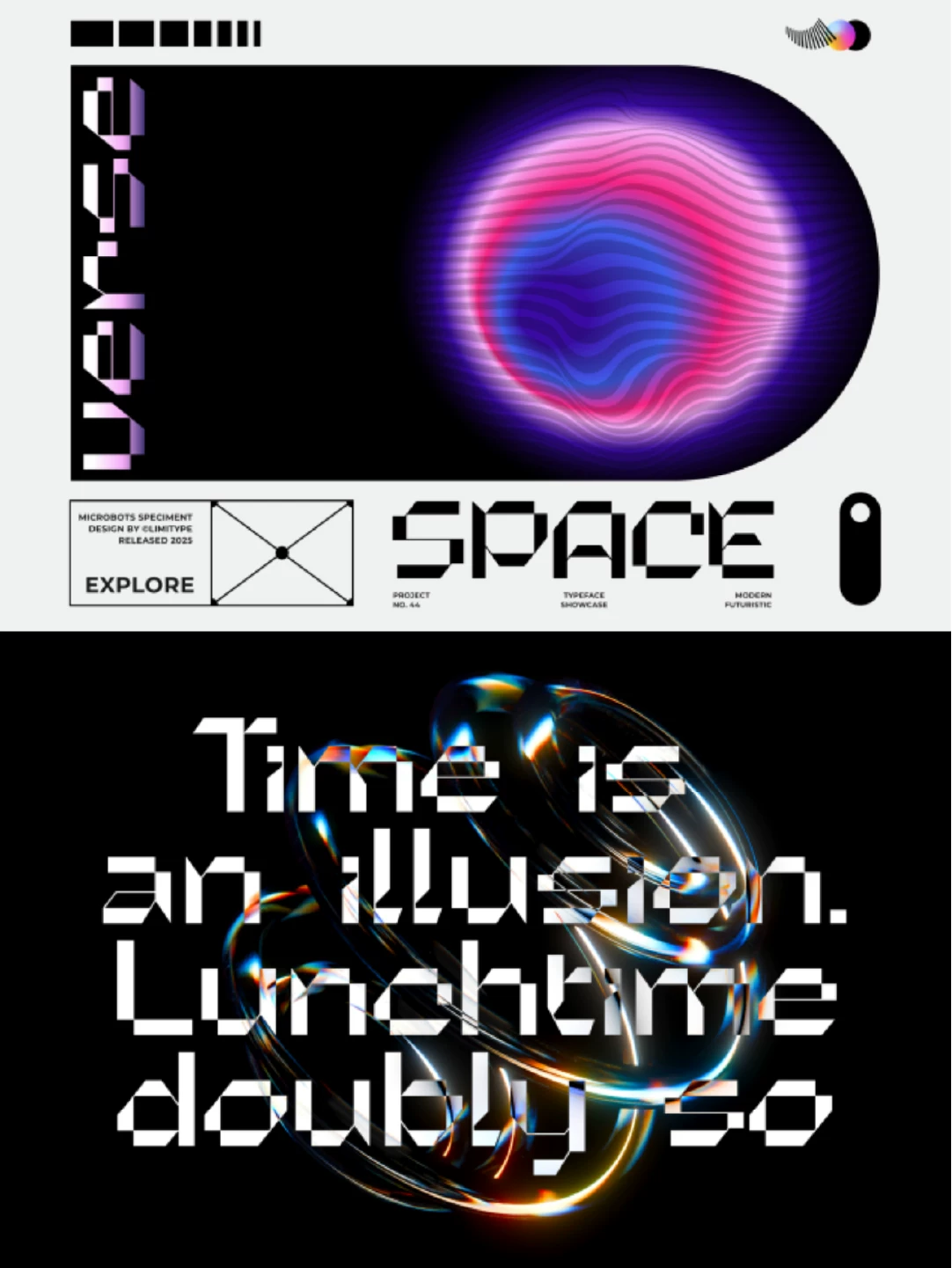
Future digital technology pixel mosaic game style – Font
Future digital technology pixel mosaic game style poster title English letter font pack material. A ready-to-use digital design resource for creative projects, presentations, branding and content production.
Future digital technology pixel mosaic game style poster title English letter font pack material